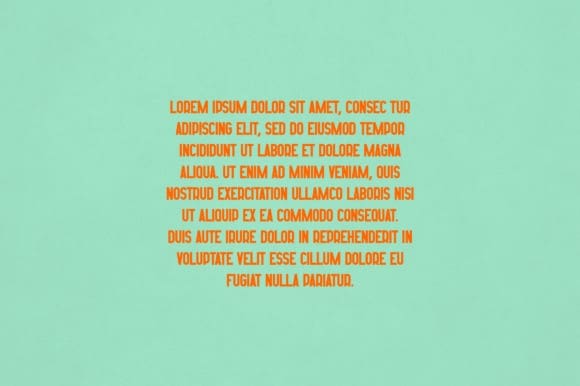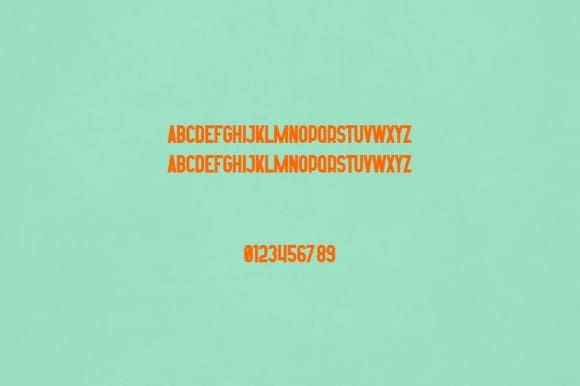
Rebella Font
Rebella Font is an elegant and versatile sans serif font that will make your typography truly unique! It will enchant every logo, branding, headline, or plain text!